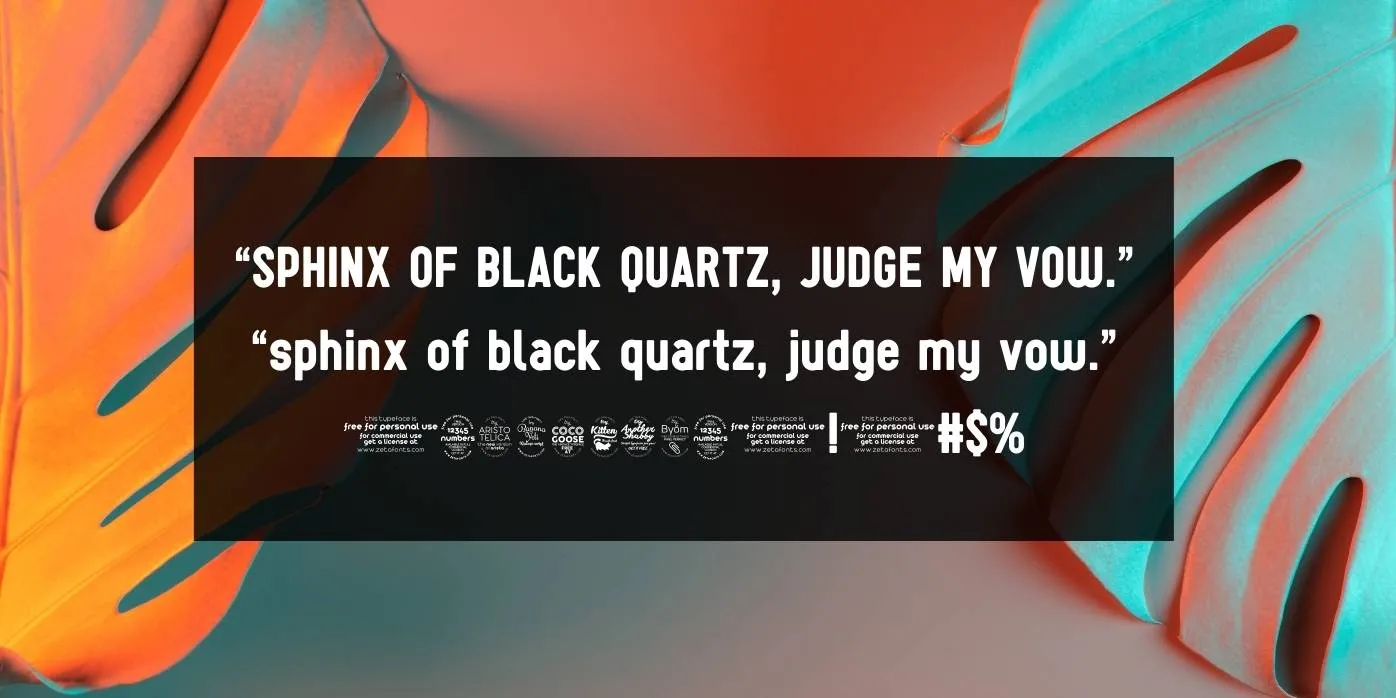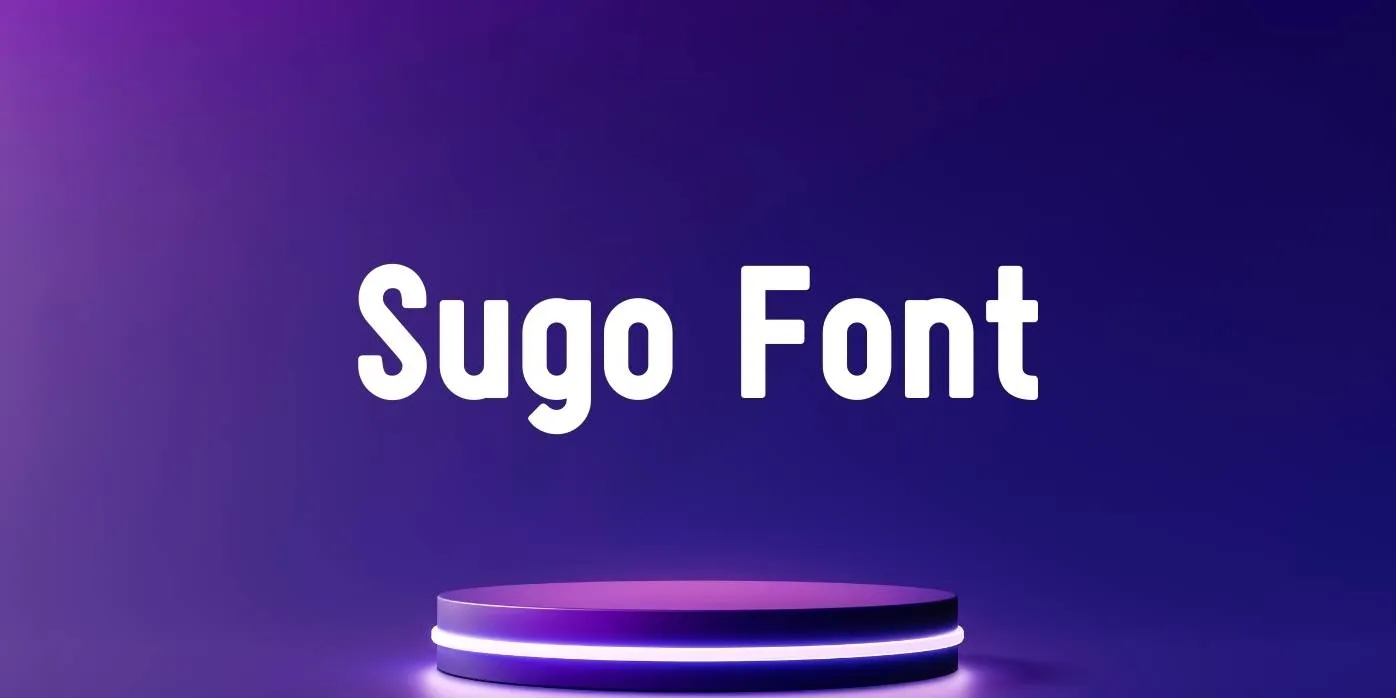
Sugo Font
Here, we introduce a new stylish typeface named Sugo Font. This tremendous font family was developed by Francesco Canovaro. It belongs to the display font family. You can use this font for headlines, logotypes, and posters as well.
The Sugo Font has an organic look with the help of clean curves. Every character of this typeface contains unique details. That makes it different from other fonts in the market. You will get a complete set of 162 characters including uppercase, lowercase, symbols, and numbers.
It is well specified by the CSS. You can also use this typeface for canvas. This font is available in three weights: Regular, Medium, and Bold. So, you can create any kind of design with the help of this fantastic font family.
Also, it supports languages that are why famous all over the world.